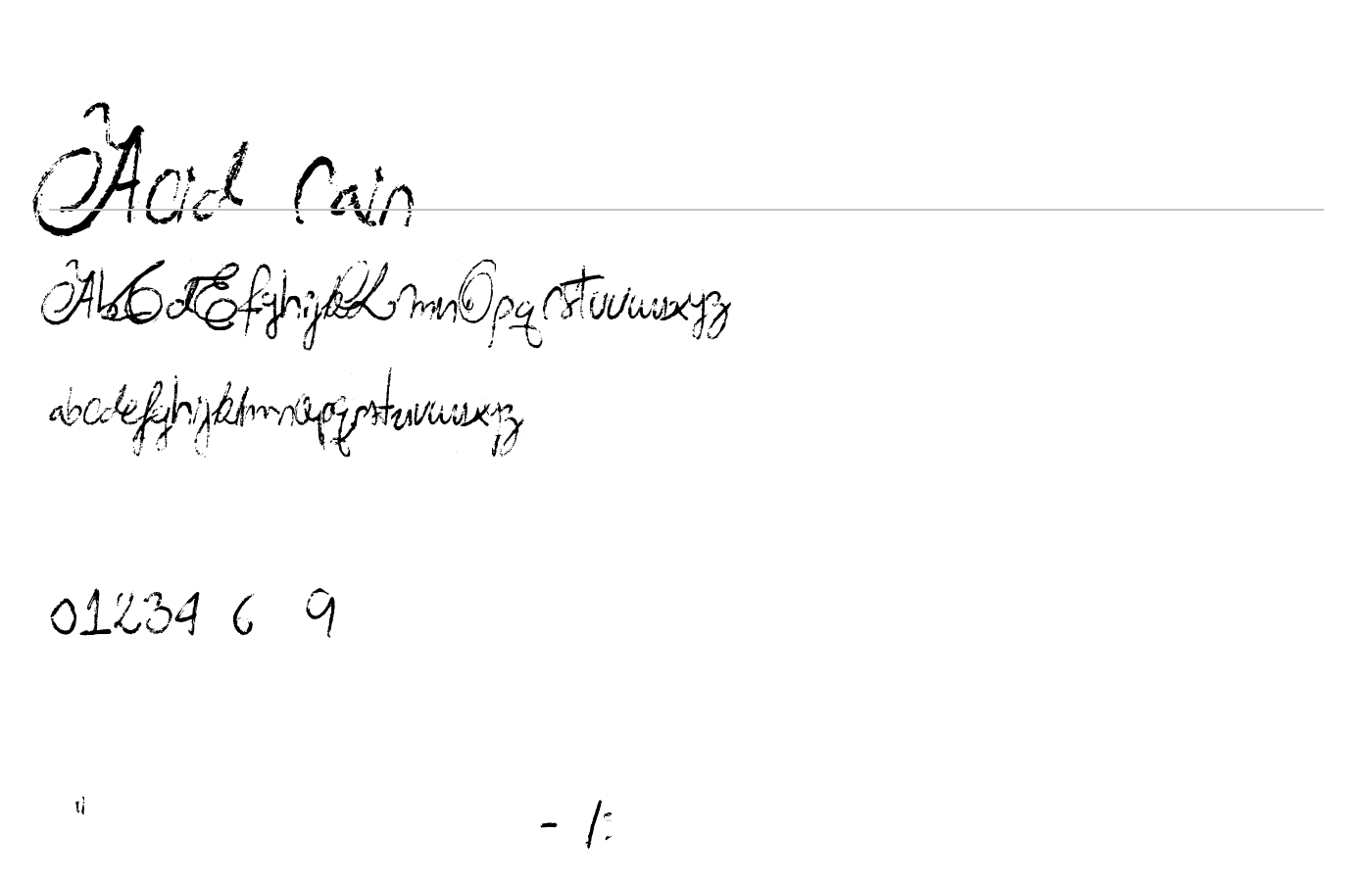
Acid Rain is a distinctive script font with a raw, distressed texture that gives it an edgy, hand-drawn look. Its thin, irregular strokes and slightly chaotic letterforms create an artistic, rebellious vibe, making it ideal for creative projects, alternative branding, and expressive designs that want to stand out with personality and a touch of grunge. This font works best for headlines, logos, or artistic posters rather than body text due to its decorative and textured style.
Acid Rain Font
About Acid Rain Font